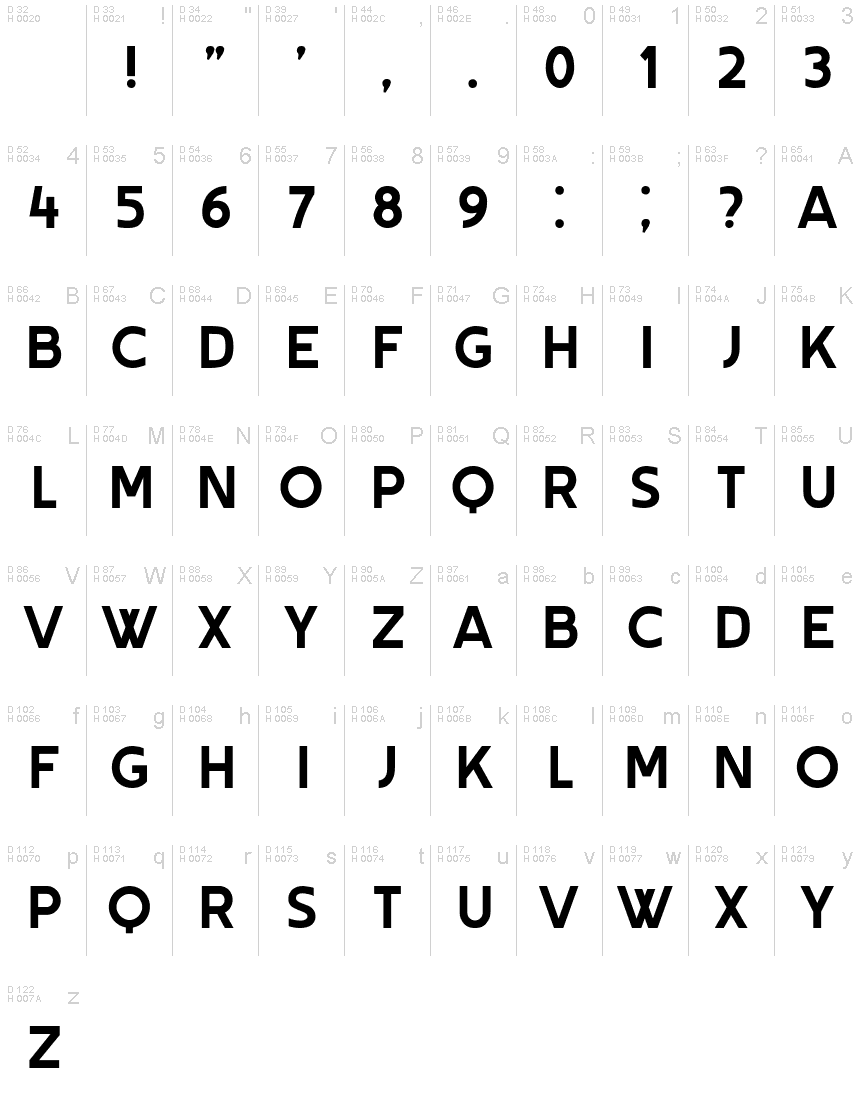
Hagenauer Regular
Hagenauer is a sleek and modern sans serif font designed by Vladimir Nikolic. With its clean lines and contemporary feel, this font is perfect for branding projects, editorial designs, and website layouts. Hagenauer's versatile semi-bold typeface makes it suitable for a range of applications, from headlines to body text. Plus, its variety of weights and widths allow for creative flexibility in design projects. Whether you're working on a minimalist logo or an eye-catching poster, Hagenauer is the ideal font choice for any project in need of a sophisticated touch.